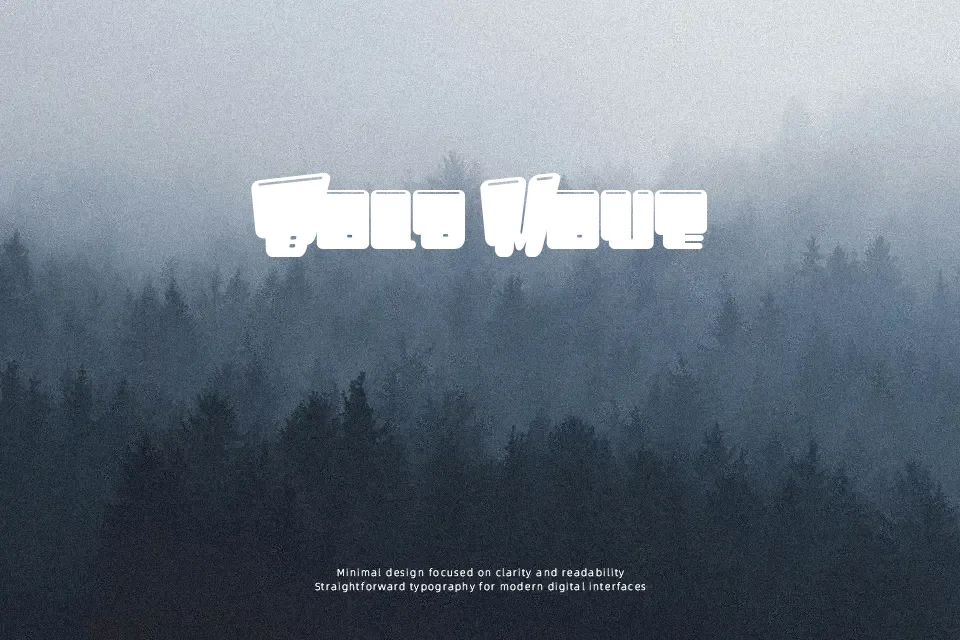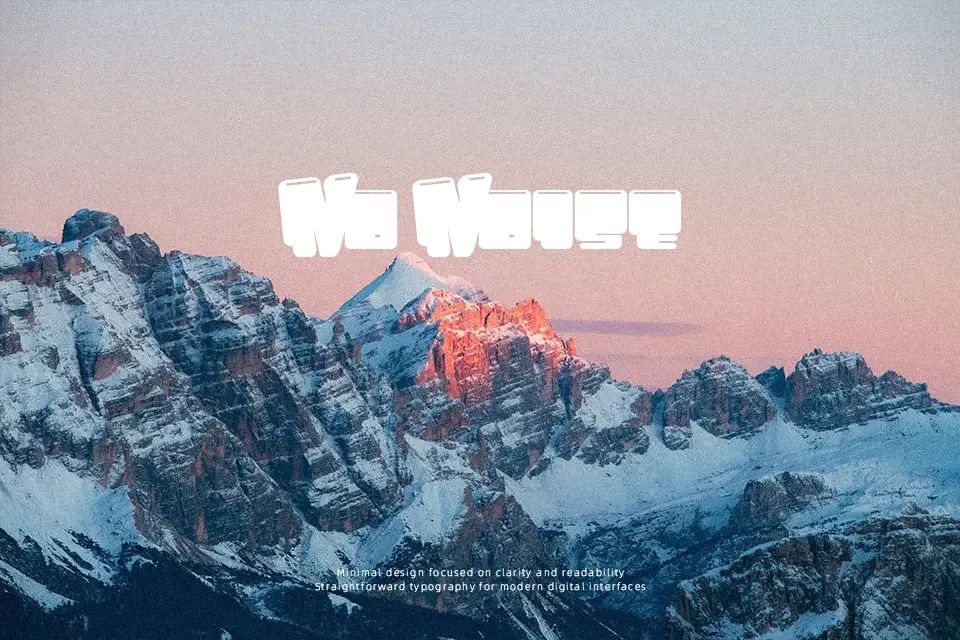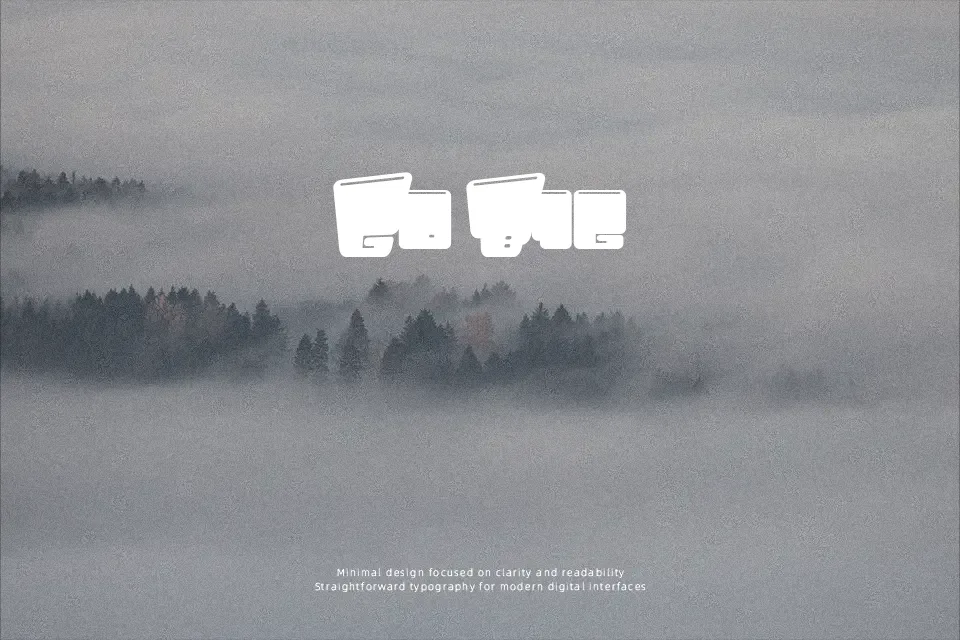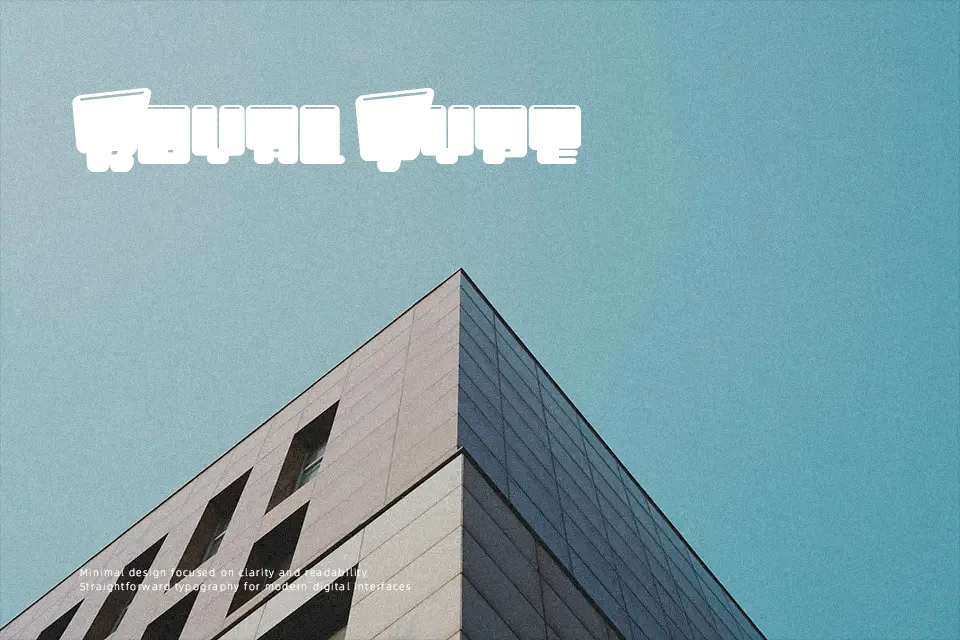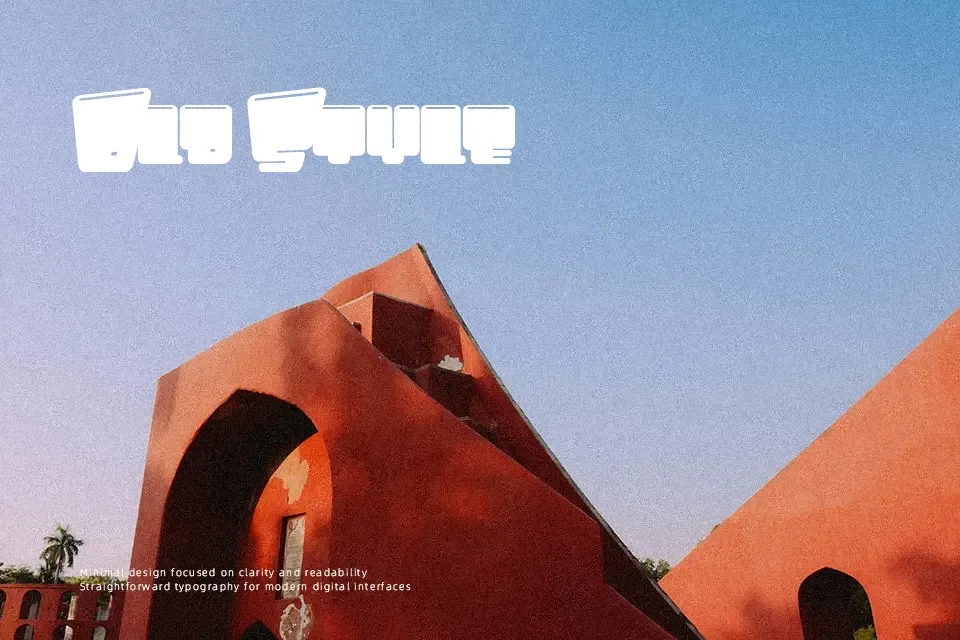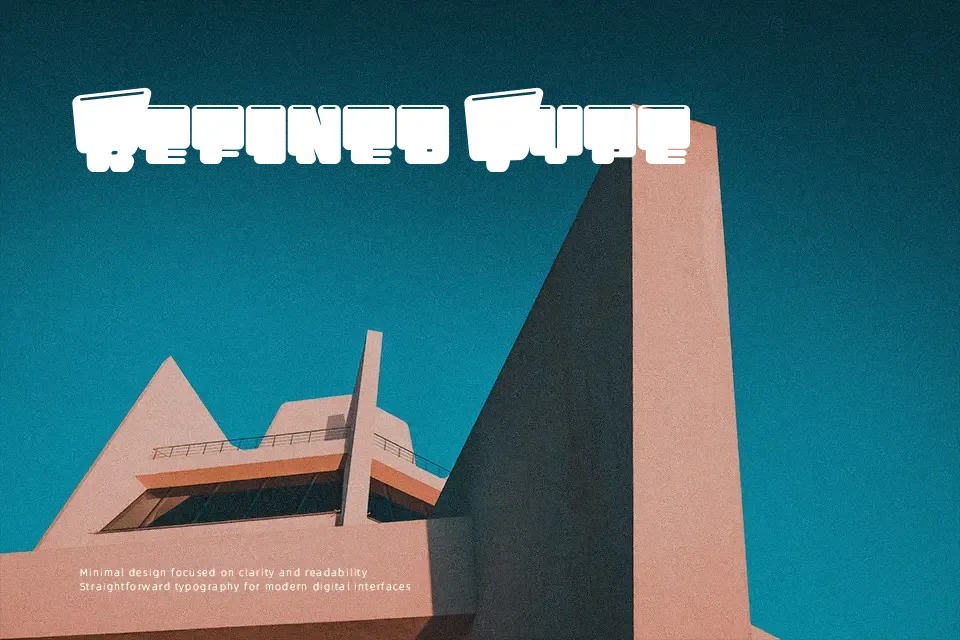
Pligo Font
Pligo Font is a bold display typeface defined by its heavy, balloon-like structure and heavily rounded terminals. The thick strokes and compact proportions give the letterforms a highly energetic and friendly presence. Tight spacing emphasizes its solid mass, making the characters visually cohesive in short headlines. This aesthetic is perfectly suited for retro-themed packaging, lively music festival posters, and vibrant children’s branding. However, the exaggerated curves and dense forms severely reduce comfort during extended reading, making it unsuitable for paragraphs. The ultra-heavy strokes maintain excellent clarity in larger display formats but quickly lose definition when scaled down to smaller interface sizes.
retro product packaging
lively music festival posters
children’s brand logos
vibrant apparel graphics
Perfect for advertising, kids, and logo, with a bold and cartoon style.